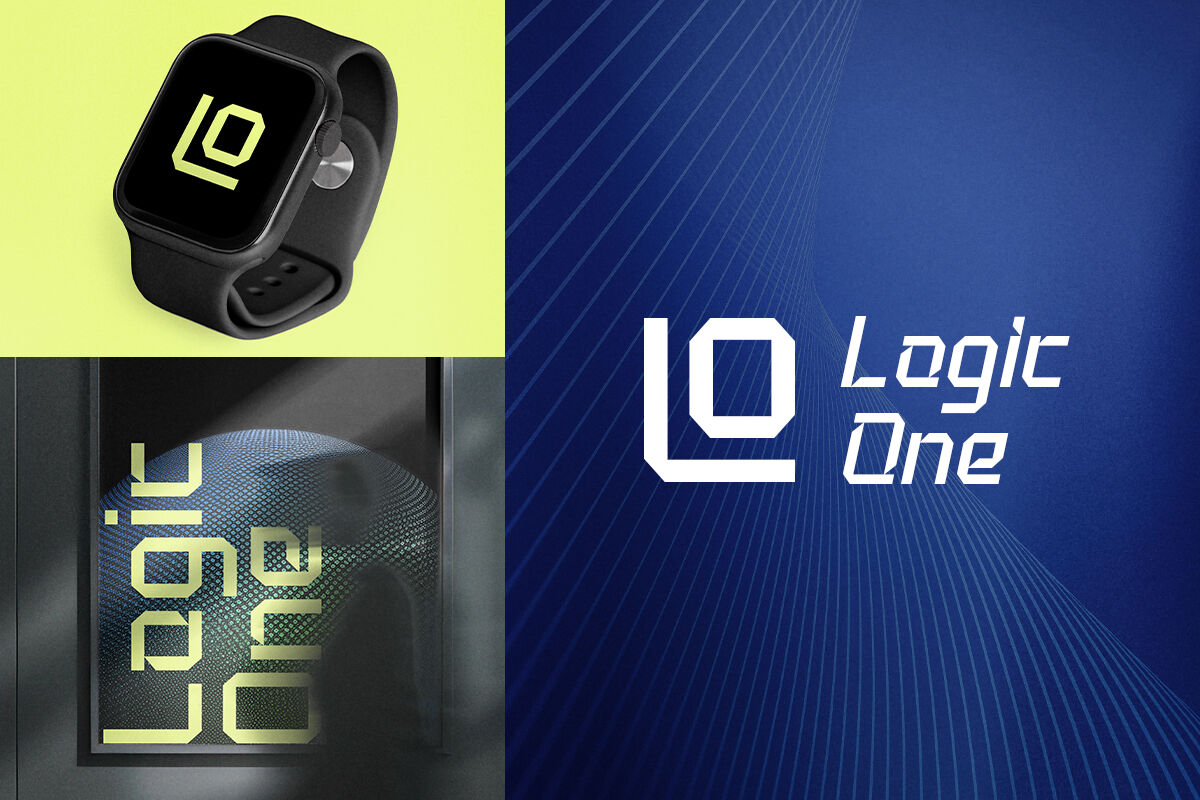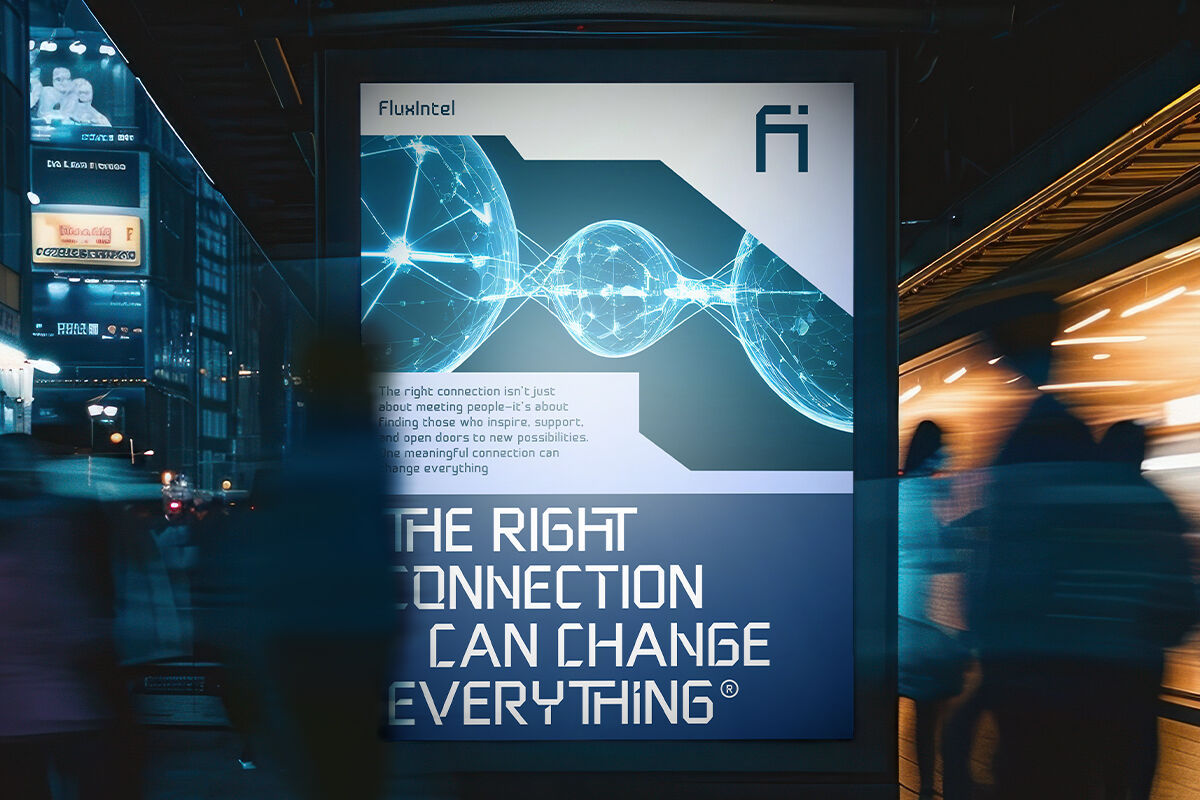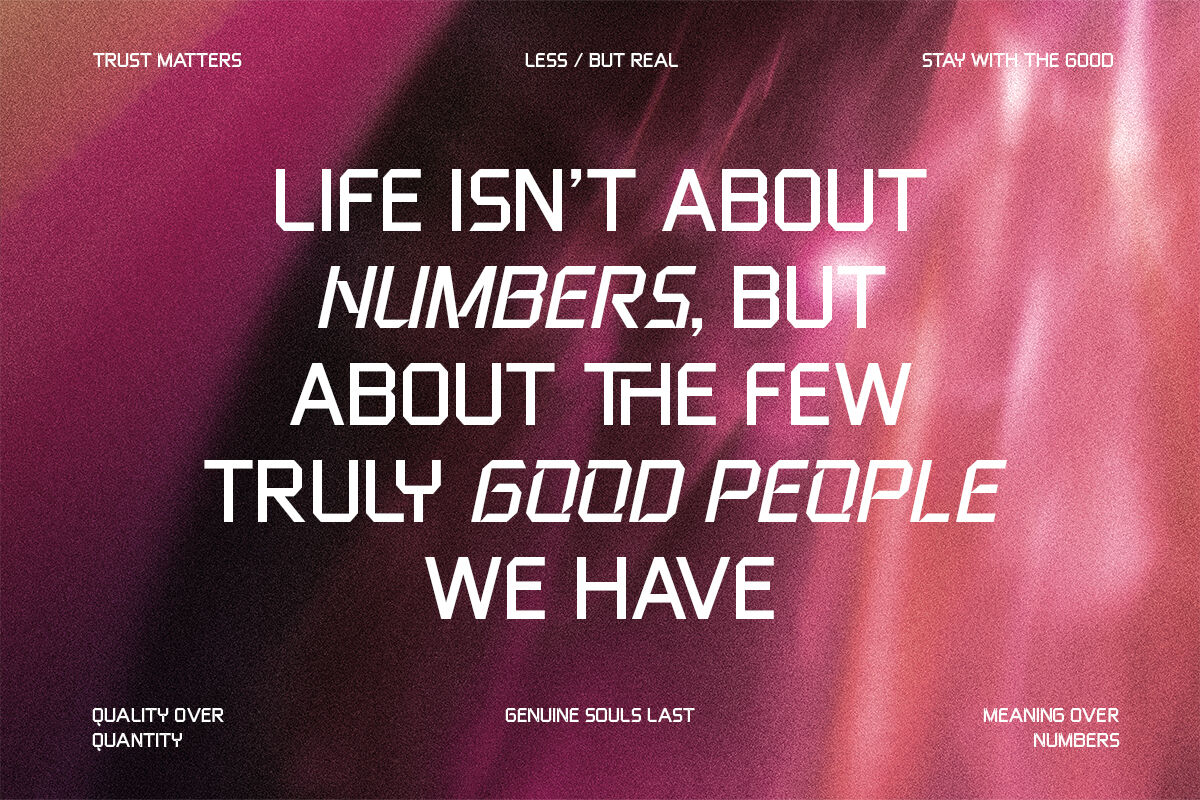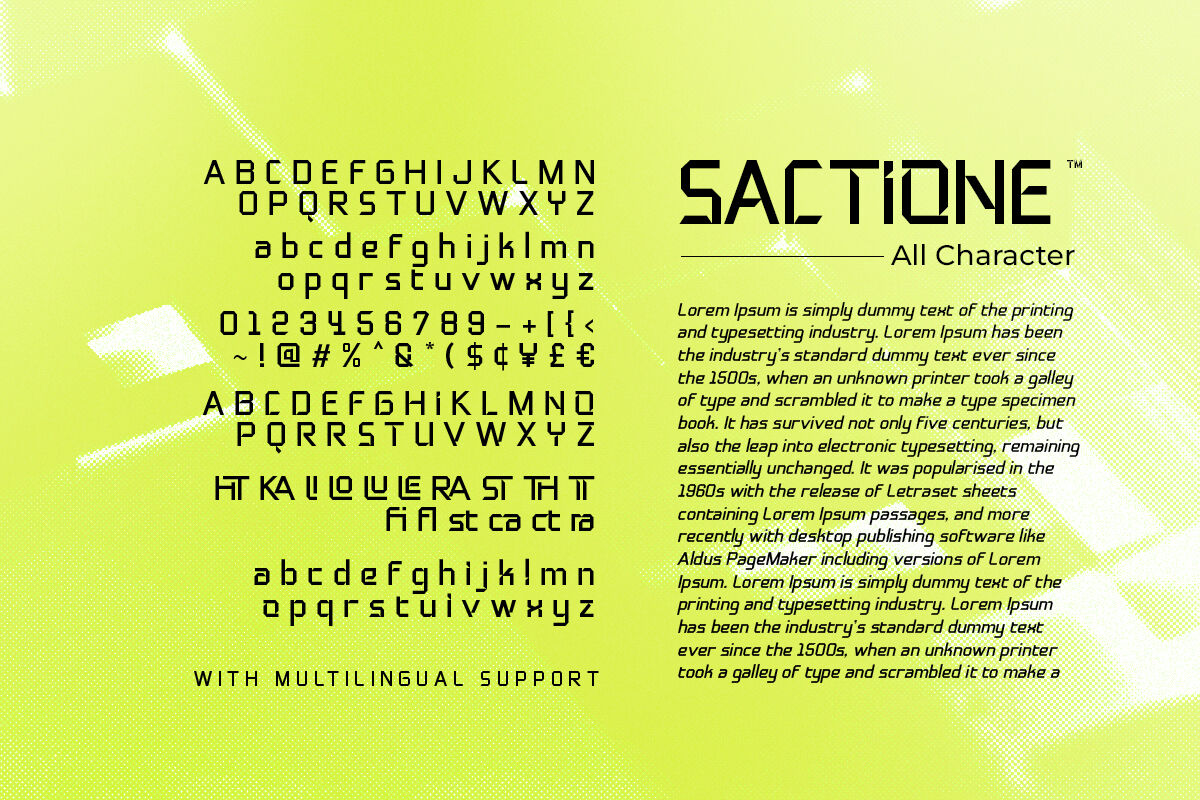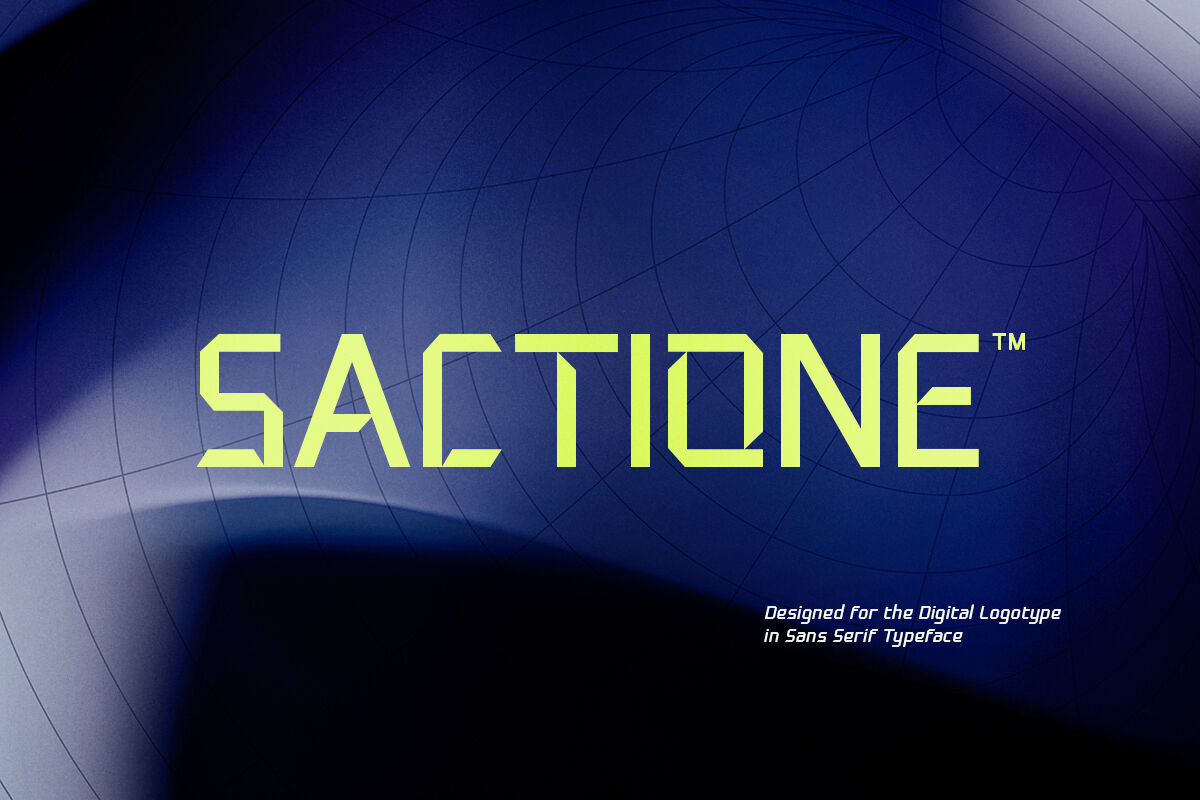
Sactione - Digital Logo Font
Sactione is a digital logo font based on sans serif with futuristic and modern looks. Coming with stylish uppercase and lowercase, you can make your logo looks more clean and modern. This font also including ligatures and cut off that will make your project looks more interesting. You can use this font for branding, logo, and designs that require high technology looks. This font also support multilingual.